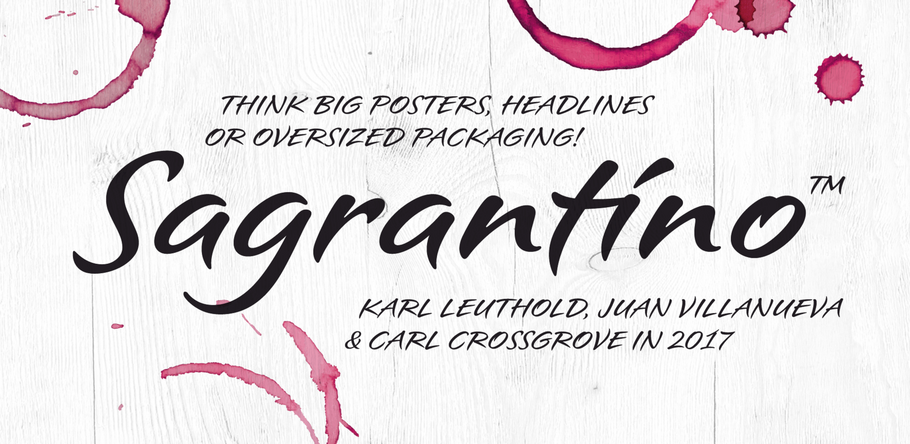
Hand Drawn Fonts For Posters
Outlines’ (2nd screenshot) • ‘Hooray!. Create wondrous designs with this unique brushstyle font This font features a rough, handdrawn quality that is perfect for vintageinspired designs Included in this download are access to uppercase letters, numbers, and more Use this font for posters, headers, and more for unique graphic designs. Click to find the best 471 free fonts in the Hand Drawn Poster style Every font is free to download!.
The font embodies the passion for travelling, surfing, nature, and every thing else made with love Holiday Travel Font Duo This stunning new double act includes one script font, with alternates and a straight lined sans font Traveller Traveler made from brush hand drawn look, with subtle baseline adventure concept, bold character, cool. Little Morning Hand Drawn Font Premium Version Description & Details We are sharing very delicate and cute Free Little Morning Hand Drawn Font which is perfect for your future professional design projects This font can be use in children brands, greeting cards, fashion tags and other graphic & textile designs Feel free to download. This elegant lettering font is made in Pointillism style, like a light breeze that gives freshness and dreaminess to your handmade creations.
Vector hand drawn calligraphic Alphabet based on calligraphy masters of the 18th century Poster ID. Sophia – Free Handlettered Brush Script Font Many free handdrawn fonts come with cool bonuses to add more style to your work Check out the stunning Sophia brush script, for instance It features a sweet handlettered font which allows you to create your own decorated word with fun ornaments Customize your typography for posters, invites. Fills’ (3rd screenshot) • ‘Hooray!.
Drop Swing is a charming and romantic handmade font, perfect for holiday greeting cards, invitations, postcards and more!. Fills’ (3rd screenshot) • ‘Hooray!. Free Movement Handletter Brush Font is a handlettering font from real handwriting Today it is coming for free from the work of Nasser Araujo This one can be perfect for poster, product label, packaging and apparel print design as well Mona – Free Handdrawn Font Mona Handdrawn Font is a hand drawn brush uppercase font.